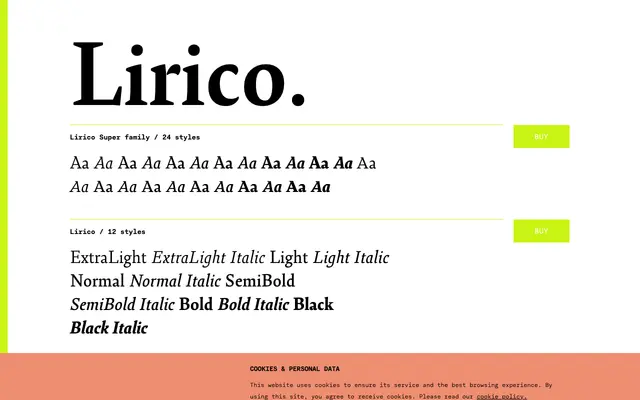
Lirico
A 24-style serif superfamily split across two subfamilies — Lirico and Lirico Press — each spanning six weights with italics.
Lirico comes in two subfamilies: the standard Lirico and Lirico Press, each offering six weights from ExtraLight to Black with matching italics, totalling 24 styles. Both subfamilies share a broad set of OpenType features including small capitals, oldstyle and tabular figures, fractions and stylistic sets. The Press subfamily appears tuned for demanding text conditions, while the standard Lirico offers additional stylistic alternates and sets suited to display or editorial work.
The specimen text referencing punchcutters and 16th-century type history, combined with the name Lirico and the presence of a 'Press' subfamily, suggests a text-oriented serif with historical influences. The range of weights and italic cuts is consistent with a transitional or humanist serif design.